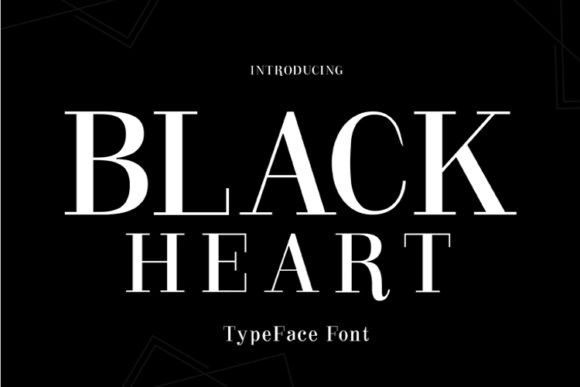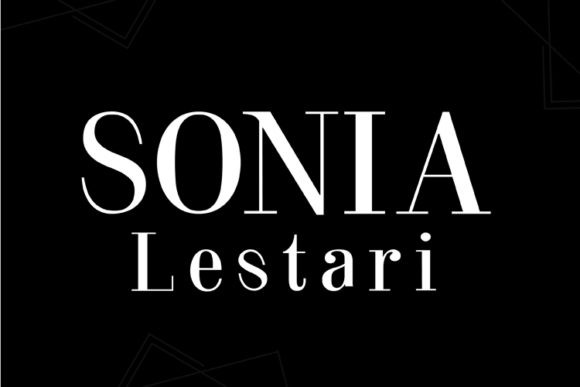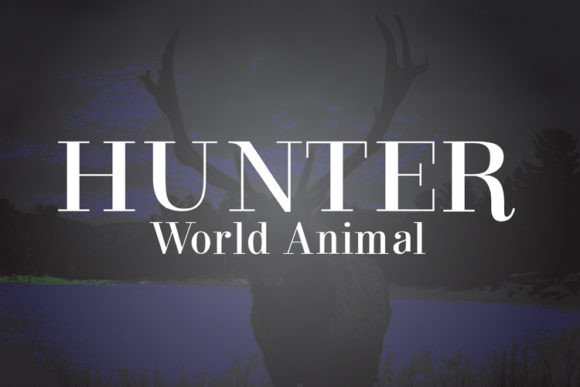
Black Heart Font
Black Heart is a bold serif font. It can easily be matched to an incredibly large set of projects, so add it to your creative ideas and notice how it makes them stand out!